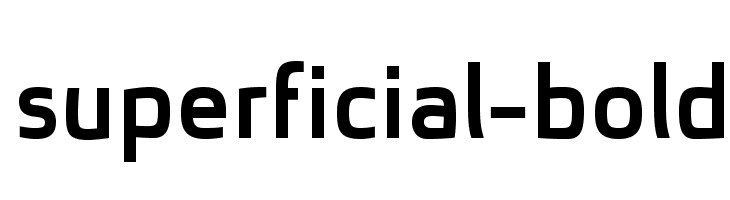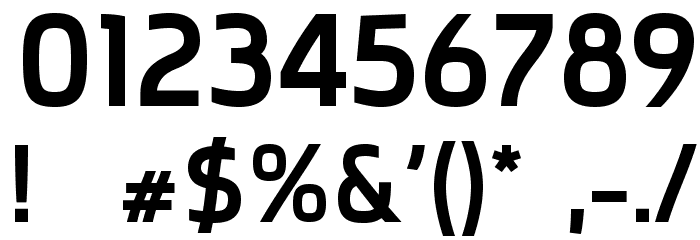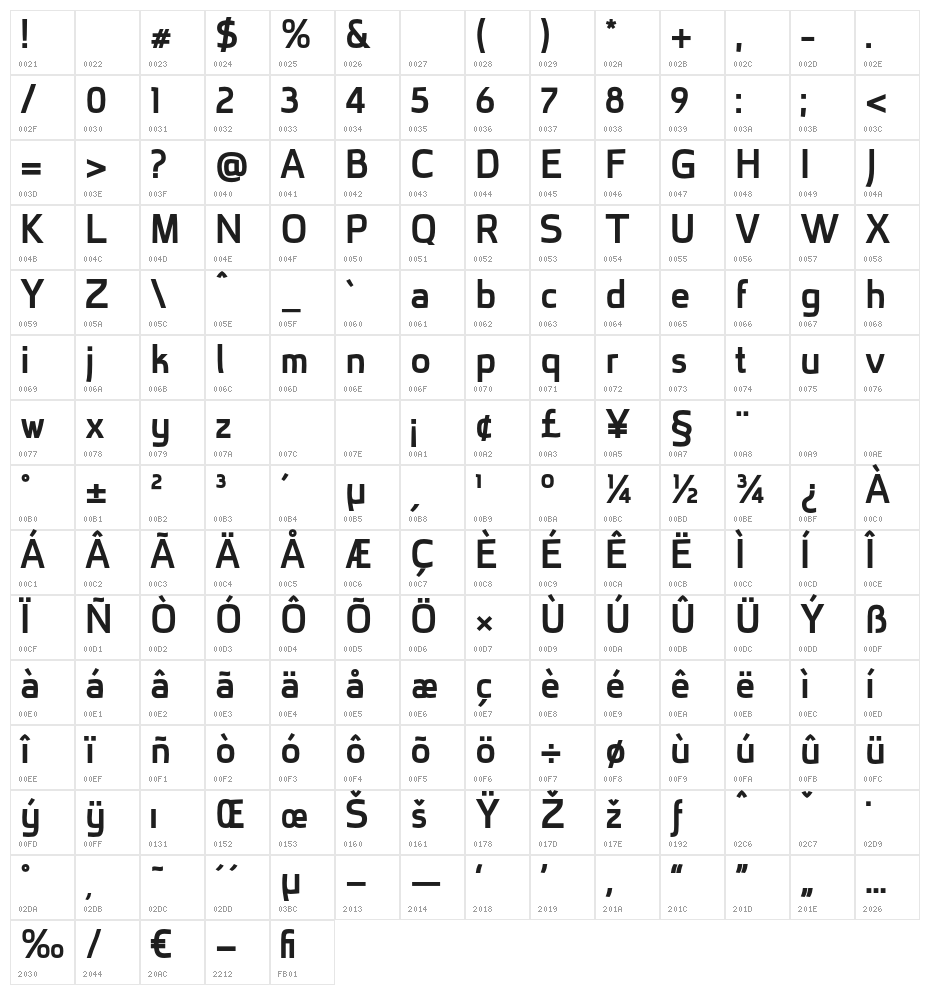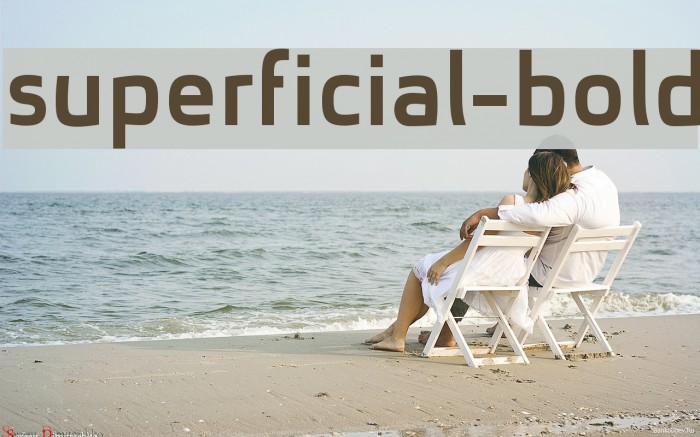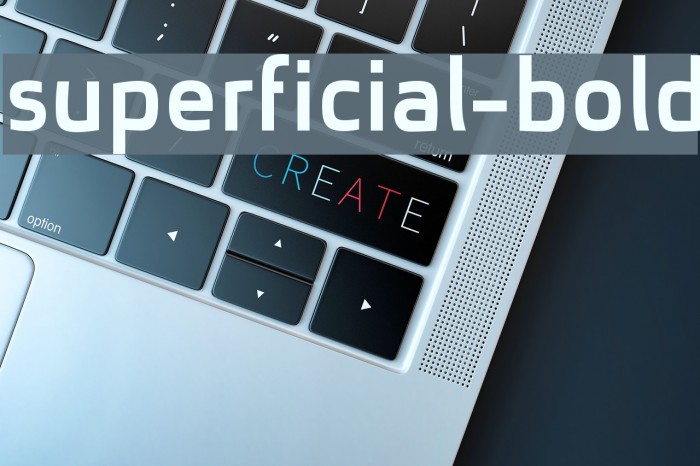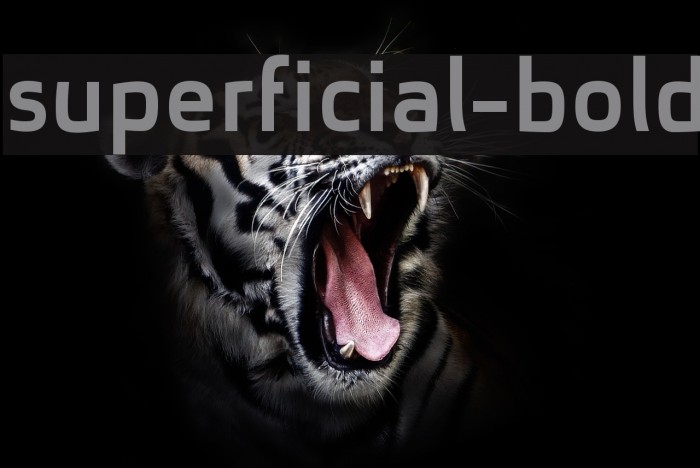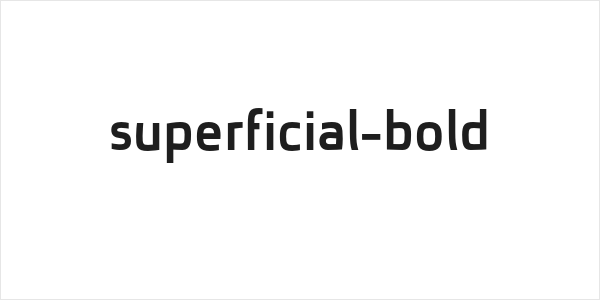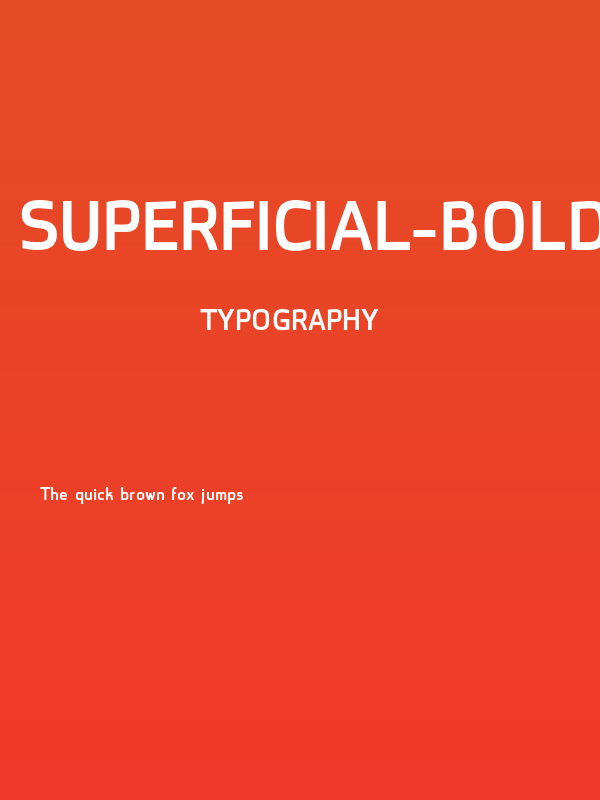
superficial-bold Font
superficial-bold Description
This font exhibits a bold and modern sans-serif style with clean, geometric lines and a strong presence. The characters are well-defined with a uniform stroke width, giving it a robust and confident appearance. The uppercase letters are slightly taller than average, while the lowercase letters maintain a consistent height, ensuring readability. The numerals are clear and distinct, matching the overall boldness of the font. Special characters are designed to complement the alphanumeric characters, maintaining the same weight and style, which makes them easily recognizable and functional.
| Proposed Projects | Ideal for branding, headlines, posters, and digital media where a strong, modern look is desired. |